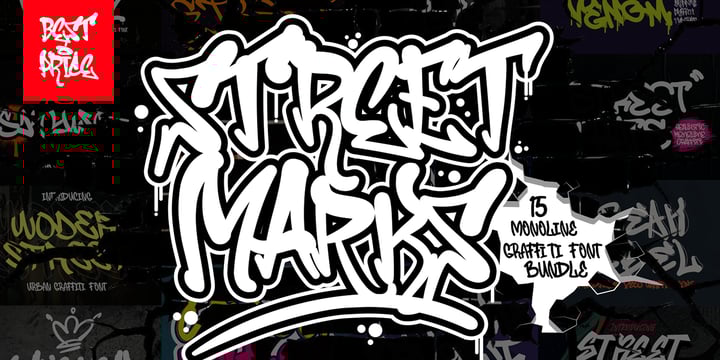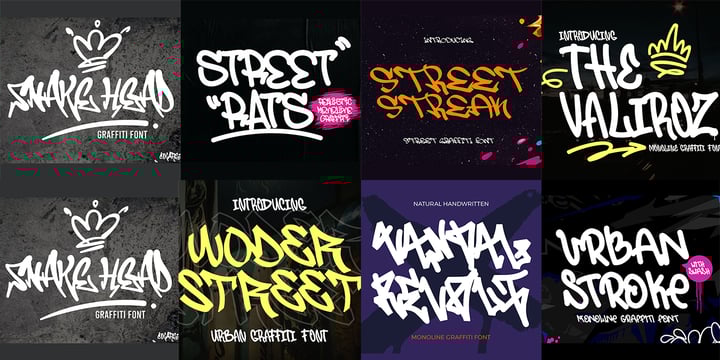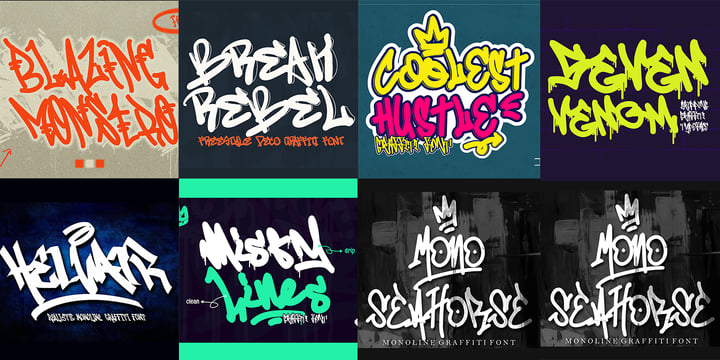
Street Marks 15 Monoline Graffiti Font Bundle
Street Marks: 15 Monoline Graffiti Font Bundle is a bold and energetic collection of monoline graffiti fonts, crafted for designers who want to bring urban vibes and expressive street style into their work. Valued at $350, this bundle is now available for only $10, giving you massive savings without compromising on quality. It offers 15 unique typefaces that reflect the raw, spontaneous spirit of graffiti culture—ideal for streetwear branding, posters, album covers, and edgy digital designs.
Included fonts:
Misty Lines, Urban Strokes, Break Rebel, Street Streak, Vandal Revolt, Coolest Hustle, Seven Venom, Snakehead, Skywof, Street Rats, Helvair, Blazing Monstro, Mono Seahorse, Woder Street, The Valiroz.